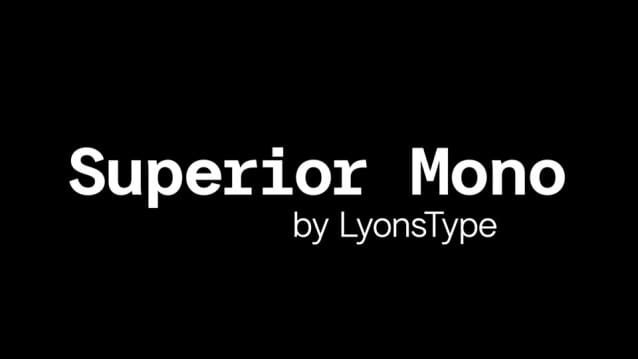
LT Superior Mono Font
LT Superior Mono Font is a modern monospaced sans-serif font that combines sleek simplicity with versatile functionality. The font is crafted with equal width proportions, offering a clean and uniform appearance perfect for coding, technical documentation, and digital interfaces.
With its contemporary design and monospaced structure, the font brings a sense of efficiency and clarity to your text. Whether you’re creating programming code, typographic art, or digital interfaces, this font ensures consistency and readability across various applications.